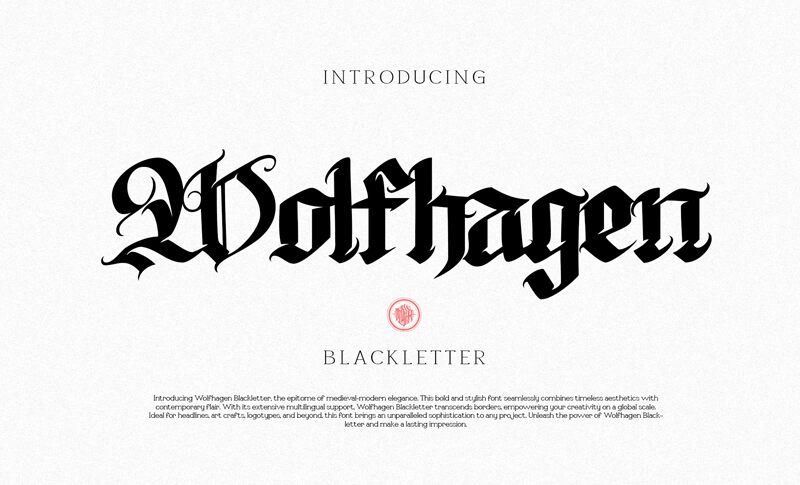
Wolfhagen Blackletter font is a gothic typeface created by Mofr24 that blends medieval style with modern grace. It carries an unmistakable elegance with strong visual presence perfect for making a statement. Ornate and decorative, this font is enriched with influences from historical contexts and styled for contemporary uses. The elements that make up this font are beautifully cohesive, delivering a distinctive aesthetic value to every project.
This free blackletter specialty font has versatile use cases in projects such as headlines, logotypes, branding materials, product packaging, advertisement posters, and social media posts. Other design ideas include creative art crafts plus event invitations whose purpose is to amaze recipients.
Wolfhagen Blackletter